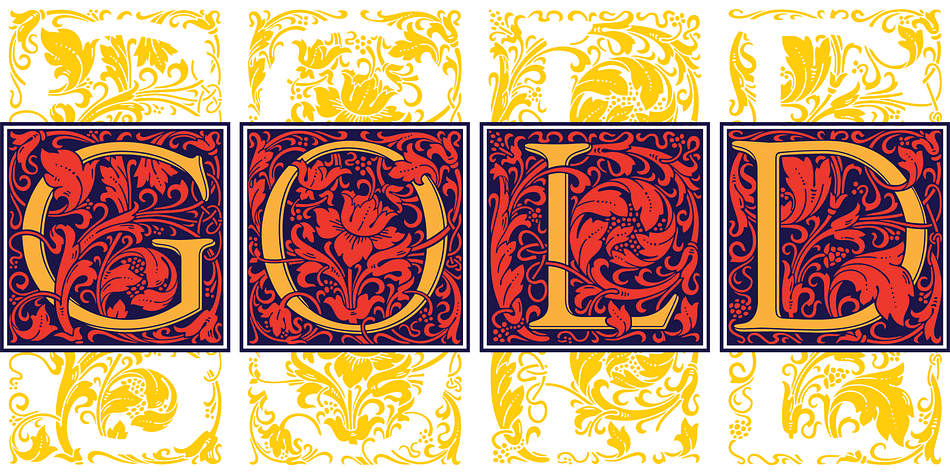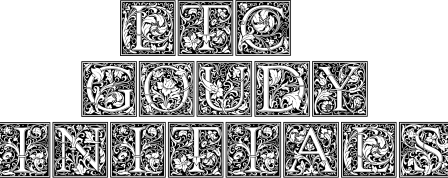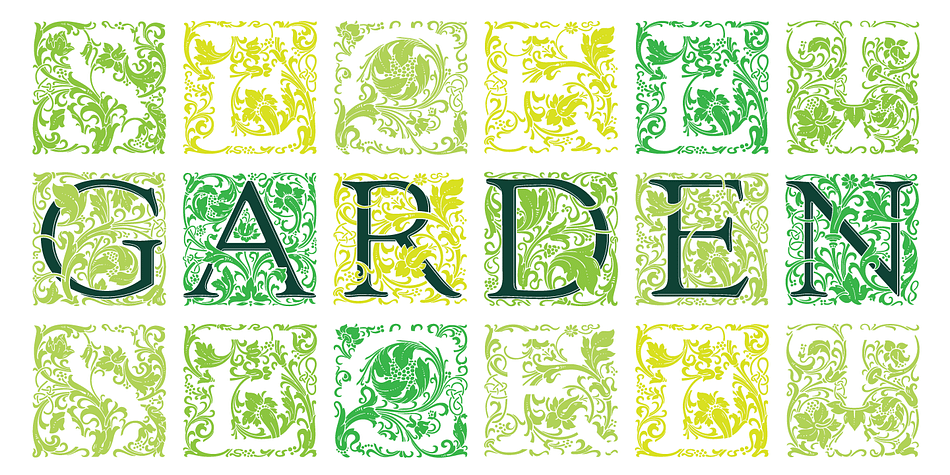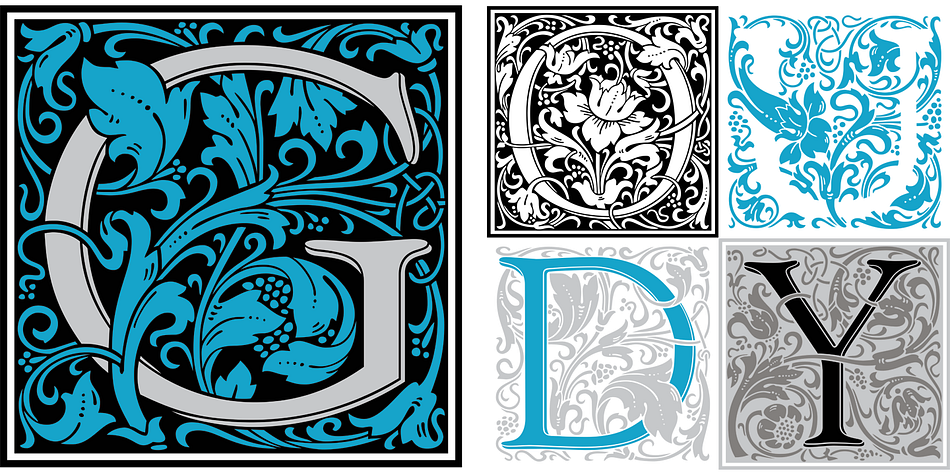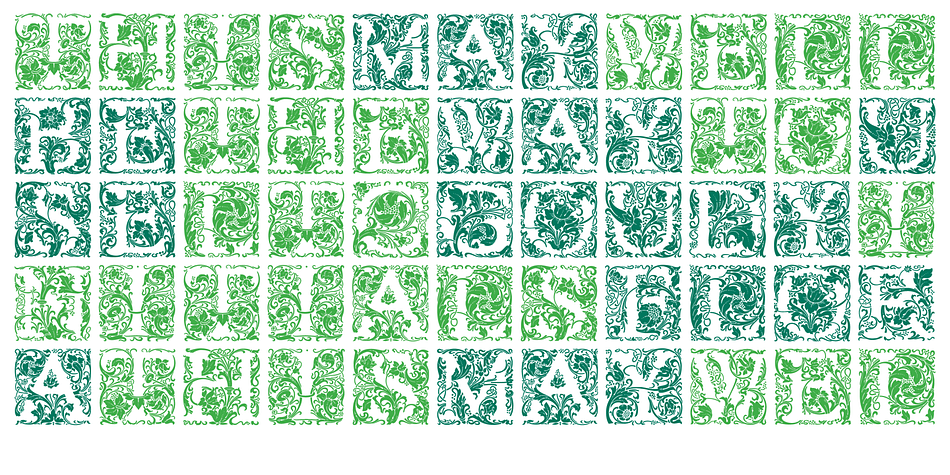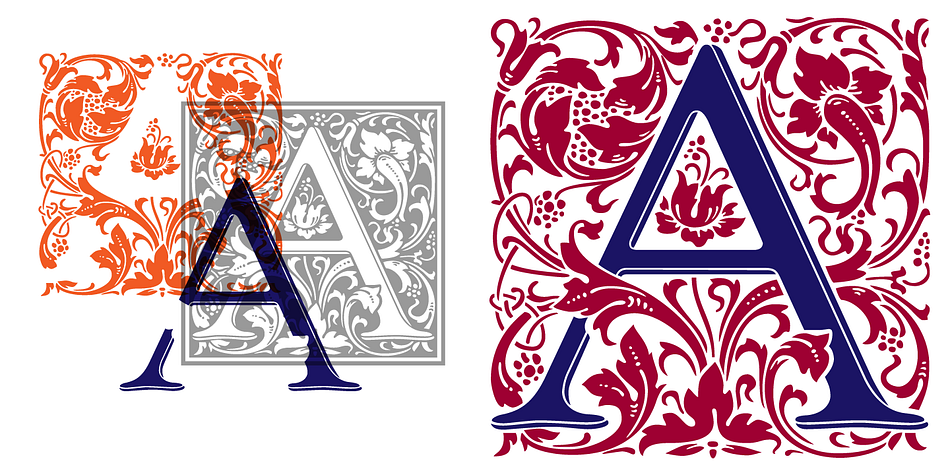
Designed by Miranda Roth and Frederic W. Goudy, LTC Goudy Initials is a monograms font family. This typeface has three styles and was published by P22 Type Foundry.
LTC Goudy Initials has been a best-seller since it was reformatted to font format by P22 in 2005. We decided that while it works very well at medium sizes, when it was used extra large, the outlines were not as true to Frederic Goudy’s 1917 drawings as they could be. We decided to redraw from the ground up—and here we have the NEW LTC Goudy Initials! Meticulously redrawn by Miranda Roth, these ornaments referenced original proofs of large sizes of Cloister Initials. In our quest for artwork for this project, we even arranged a quickly sold out recasting of the 120 point size and have produced a limited edition letterpress print from this casting
This new digital version features two additional layers to allow for quick colorizing of the central Letter and/or the floriated background. Registered users of the previous version of LTC Goudy Initials may upgrade to the set at a discount.